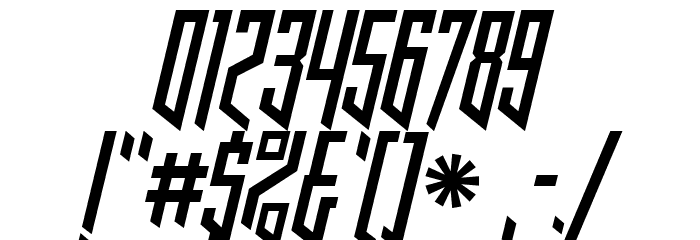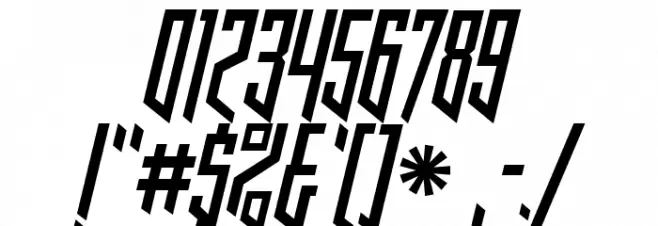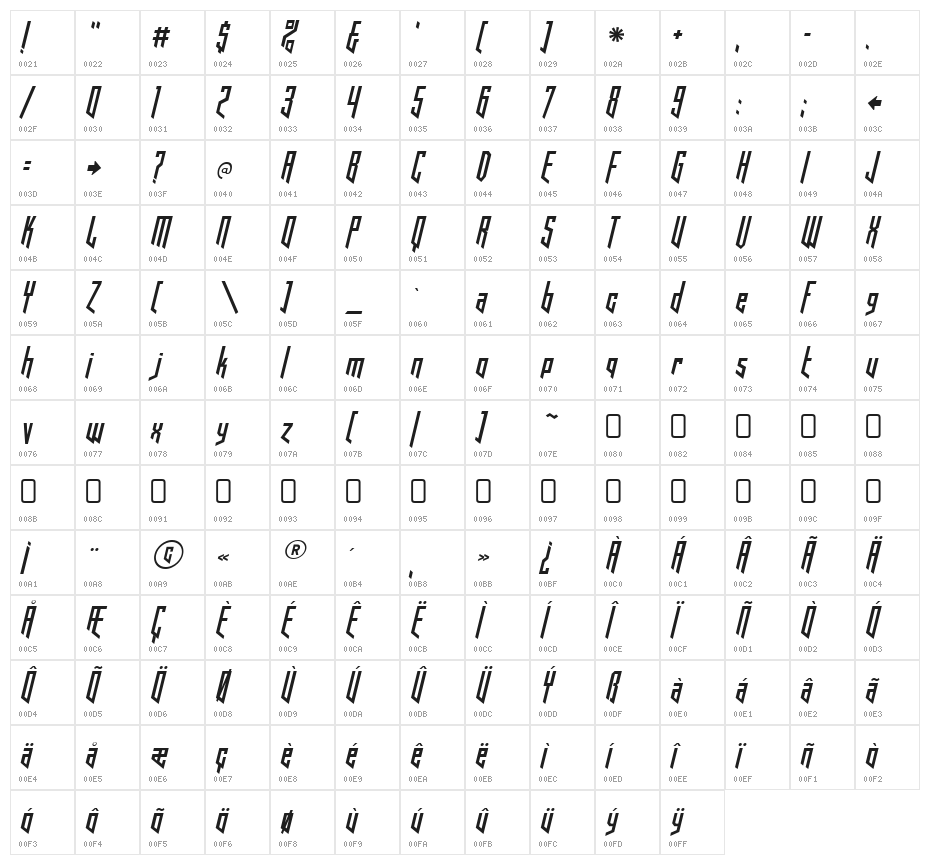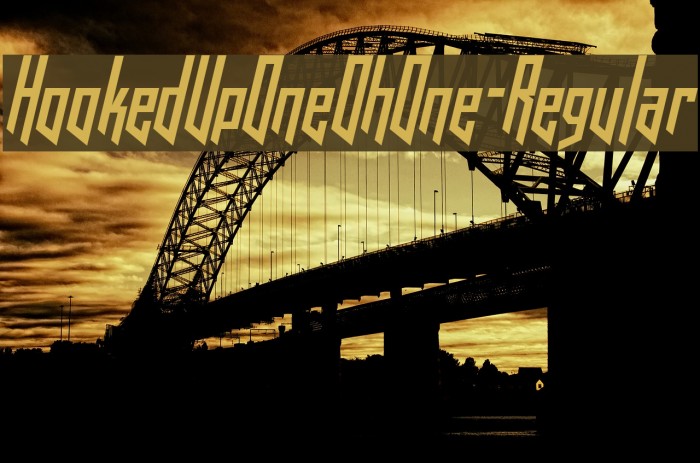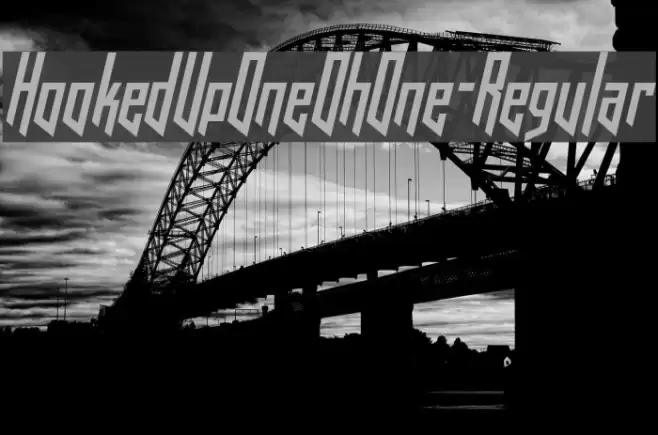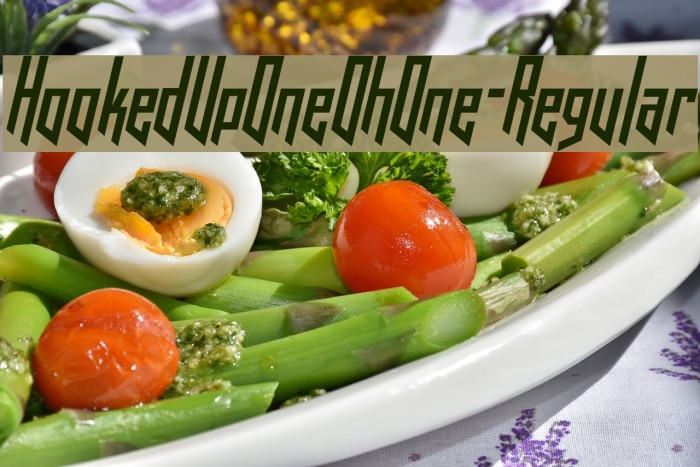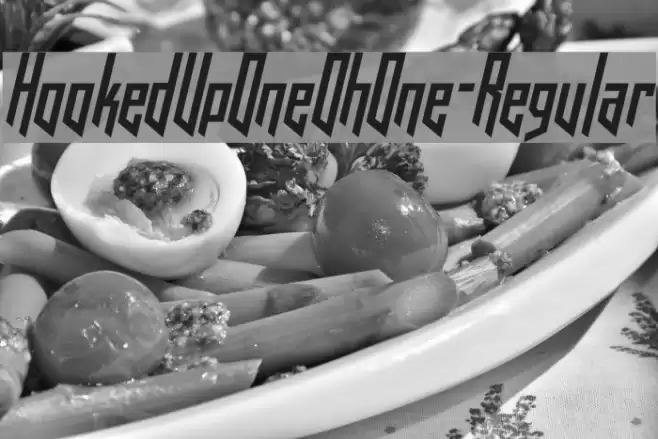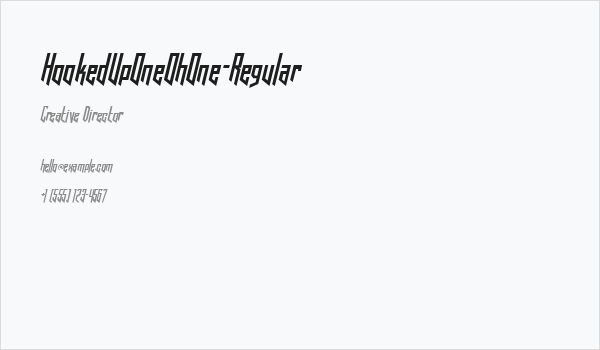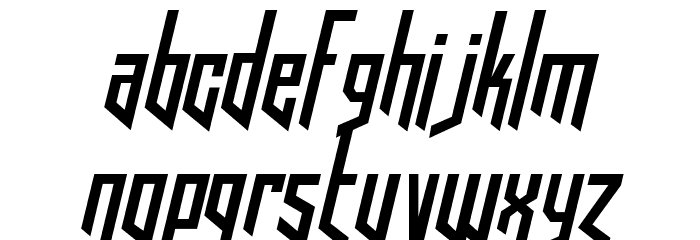
HookedUpOneOhOne-Regular Font
HookedUpOneOhOne-Regular Description
This font features a bold and dynamic design with a distinct slant, giving it a sense of motion and energy. The characters are angular and geometric, with sharp edges and a futuristic aesthetic. The uppercase and lowercase letters maintain a consistent style, with the lowercase being slightly more condensed. Numbers and special characters follow the same angular theme, ensuring uniformity across all glyphs. The font's unique style makes it stand out, ideal for projects that require a modern and edgy look.
| Proposed Projects | Ideal for sports branding, video game titles, posters, and any project needing a modern, energetic vibe. |